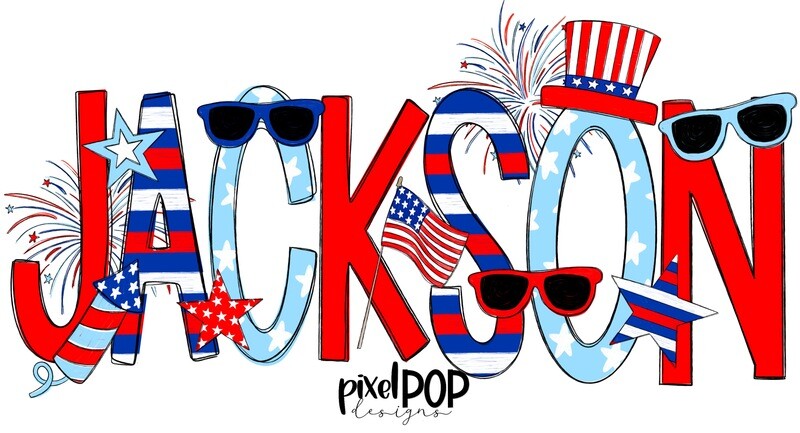
(1) Hand drawn alphabet set (letters A through Z) in red
(1) Hand drawn alphabet set (letters A through Z) in light blue stars
(1) Hand drawn alphabet set (letters A through Z) in red/white/blue stripe
(3) Sunglasses
(3) Stars
(1) Hat
(1) stick flag
(1) Firecracker
(1) Firework burst